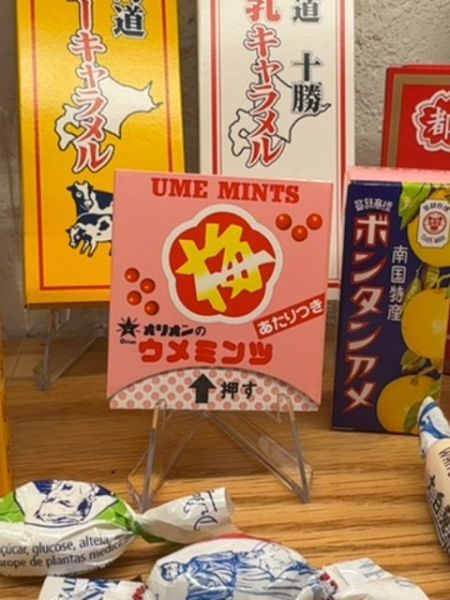
Ume Mints
A type of candy flavored with Japanese plum known for its sweet and tart taste.
The typography is bold and striking, with a mix of Roman and Japanese characters. The Roman characters for 'UME MINTS' use a strong serif font, providing a classic feel, while the Japanese text is bold and slightly rounded, offering a modern and friendly appearance.
The packaging is square and predominantly pink, featuring a large plum graphic at the center. It includes red circles that add a playful touch, alongside Japanese text surrounding the plum image.
- Ume Mints are a popular snack in Japan.
- They offer a unique combination of sweet and sour flavors.
- The packaging is designed to be eye-catching and compact.